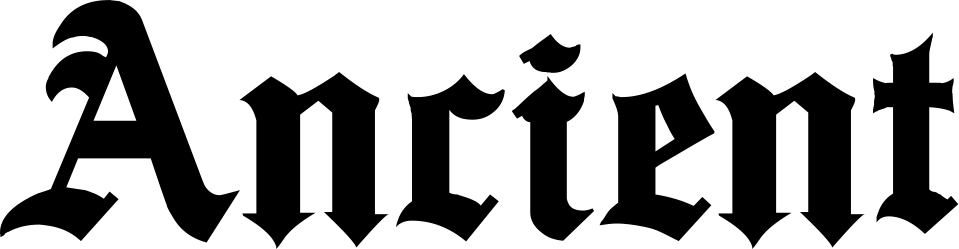
Ancient Font
Ancient has medieval and epic font types. If you are interested in historical and king movies, you must have come across such a font in its titration, posters, or tickets. In addition, this font will be the best-selling cover of historical books.
This black letter font will be the best choice for designing majestic invitation cards and designing royal documents.
The original font is called Cloister Black.